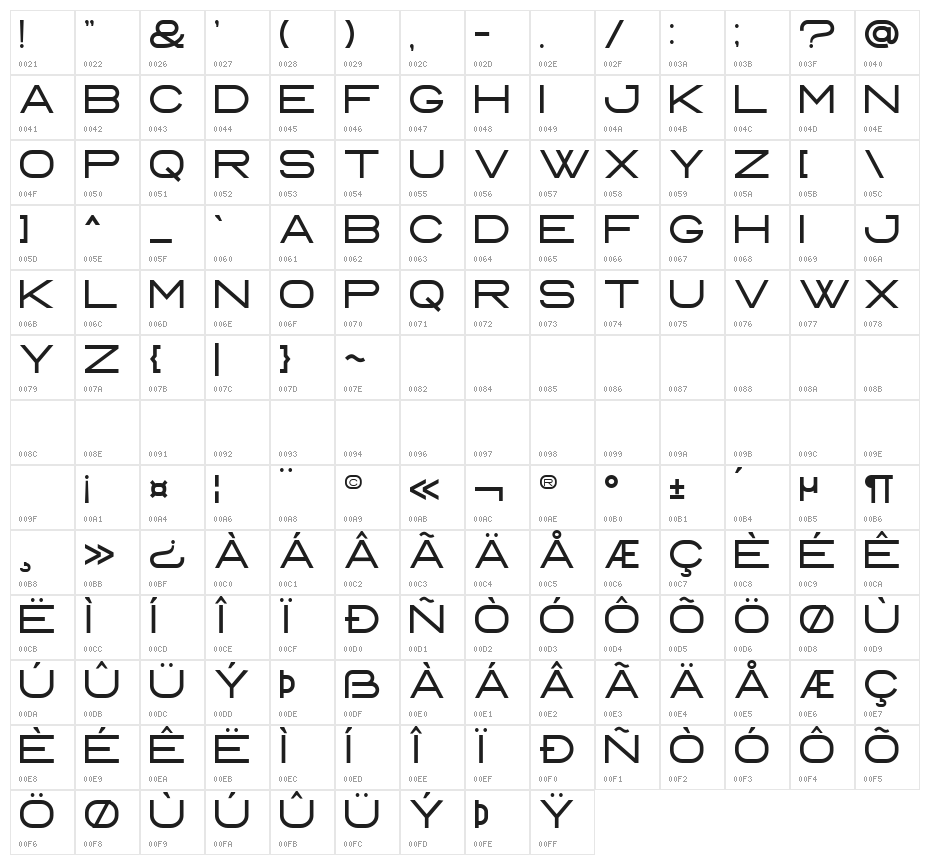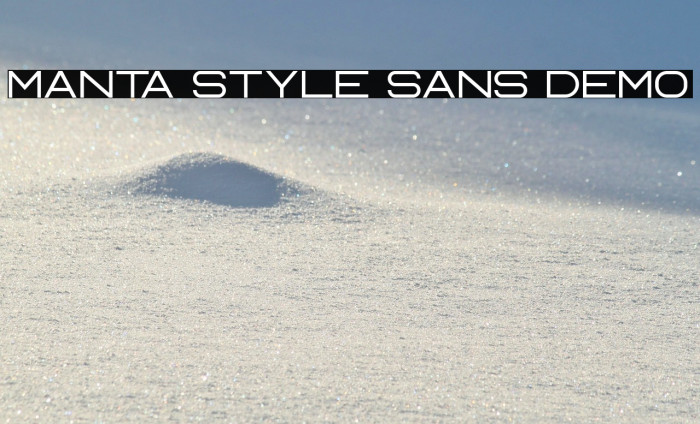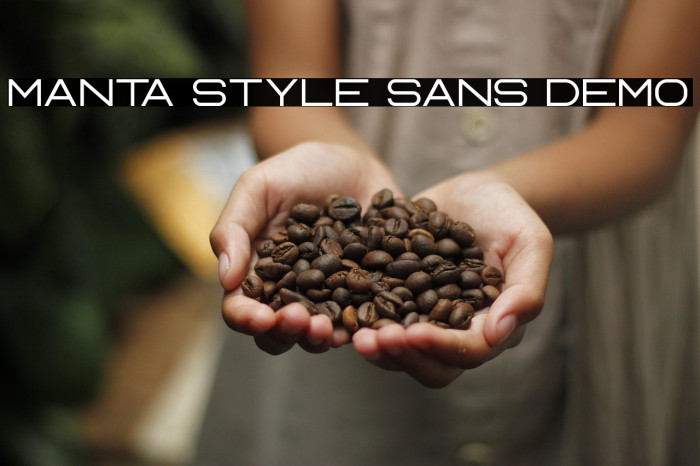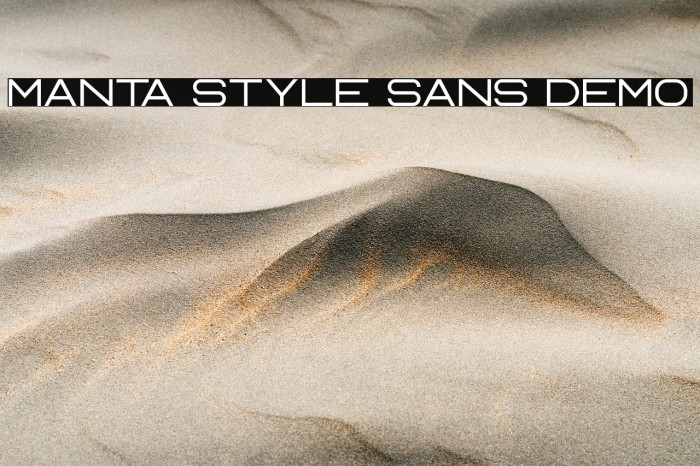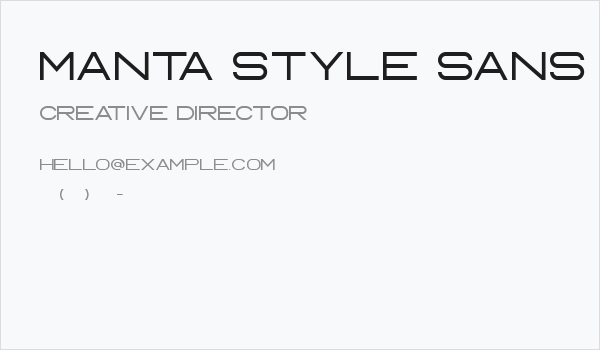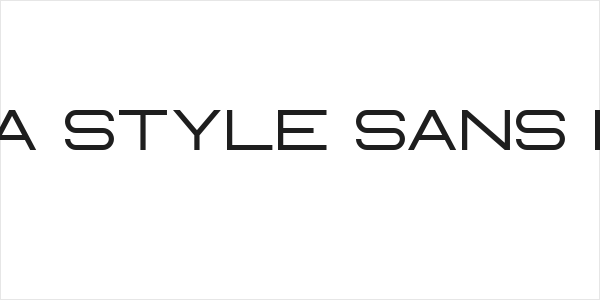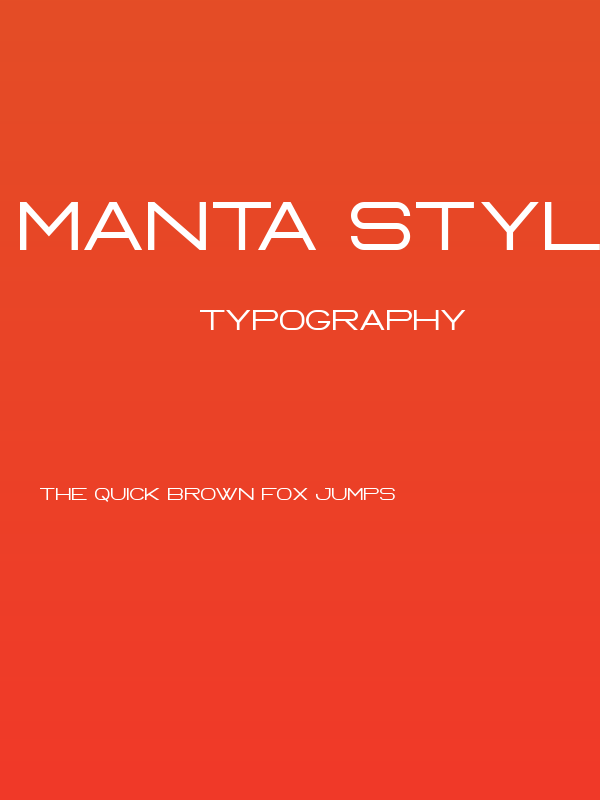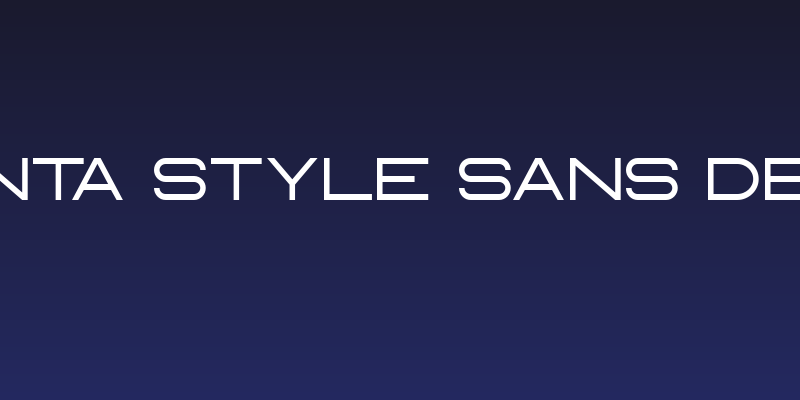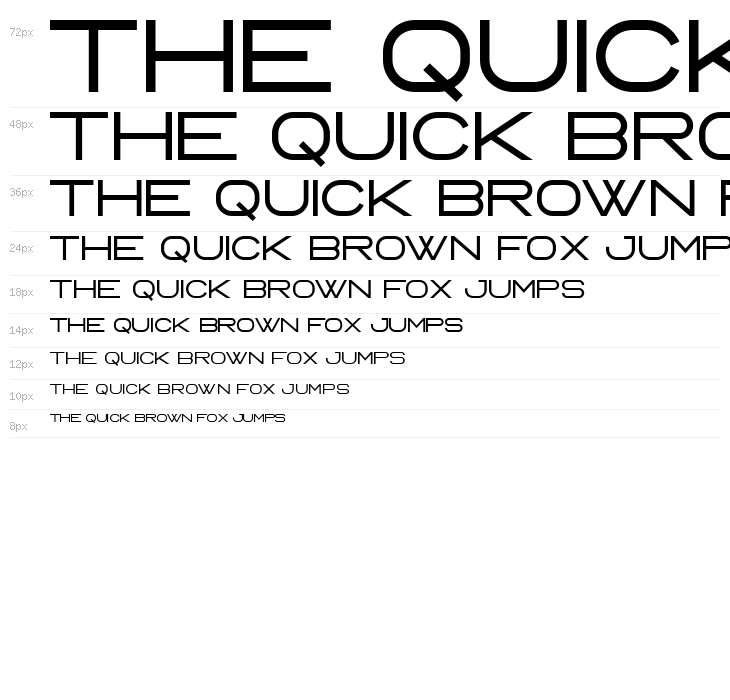
Manta Style Sans DEMO Font
Manta Style Sans DEMO Description
This font features a clean and modern sans-serif style with geometric influences. The characters are well-balanced, exhibiting a uniform stroke width that contributes to a sleek and contemporary appearance. The uppercase letters are bold and assertive, while the lowercase letters maintain a consistent design ethos, providing a harmonious look across different text sizes. The numerals are clear and legible, making them suitable for various applications. Special characters are designed with the same attention to detail, ensuring they integrate seamlessly with the rest of the font. Overall, this font is versatile, making it ideal for both digital and print media.